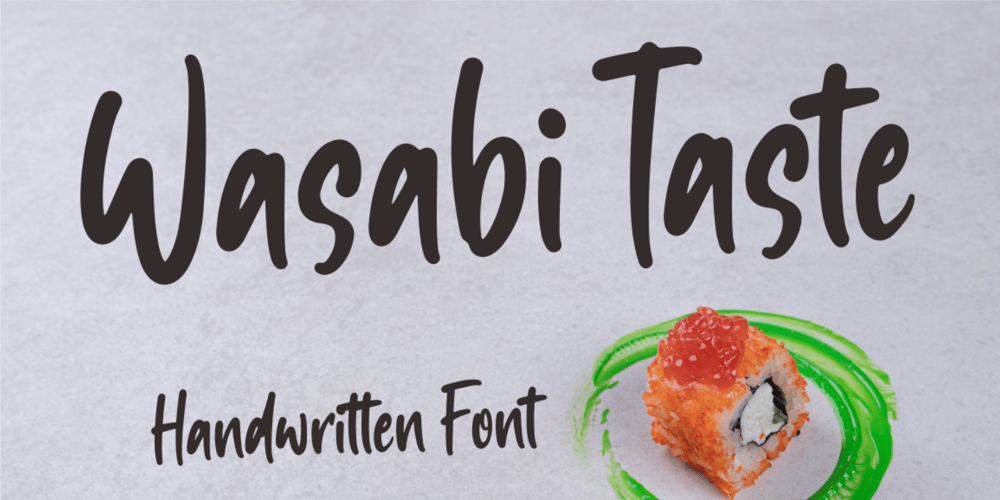
Wasabi Taste Font Family was designed by Siti Nurjanah and published by NJ Studio. Wasabi Taste contains 1 styles and family package options. Hi…Thank for your visit :)Wasabi Taste handwritten font. It features tall characters that will take your projects to the next level!This font is PUA code which means you can easily access all the glyphs that are full of authentic! It also features many special features including glyphs. font designs that are made for various vector designs, printing such as digital wedding blogs, online shops, social media, while printing can be used in the field of product clothing, accessories, bags, pins, logos, business cards, watermarks and many others …so it can make your product look authentic and attractive, and also Multilingual support!!!Happy design …